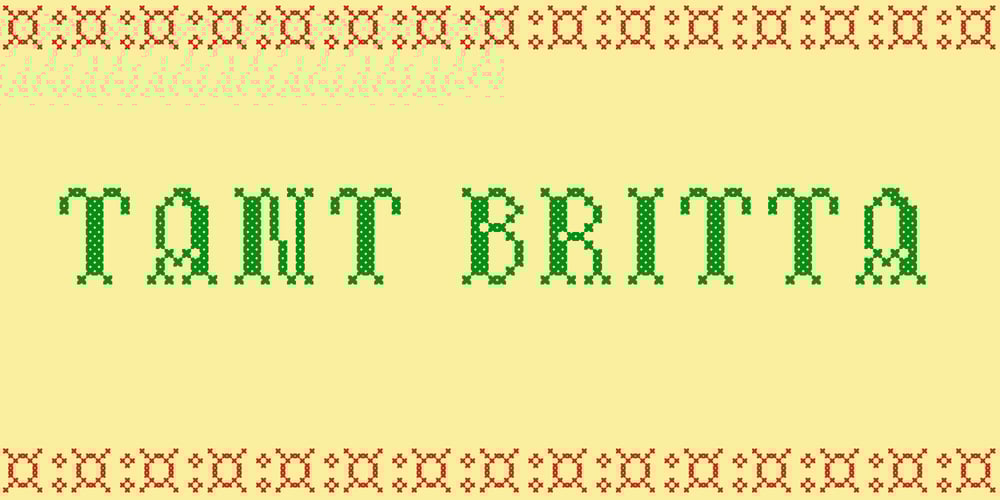
Tant Britta
Tant Britta font
Tant Britta Font Family was designed by Lars Törnqvist and published by Cercurius. Tant Britta contains 1 styles and family package options. A bold condensed caps-only cross-stitch font, based on an embroidery pattern from the middle of the 20th century. Use it in large sizes for advertising, posters, greeting cards, etc.